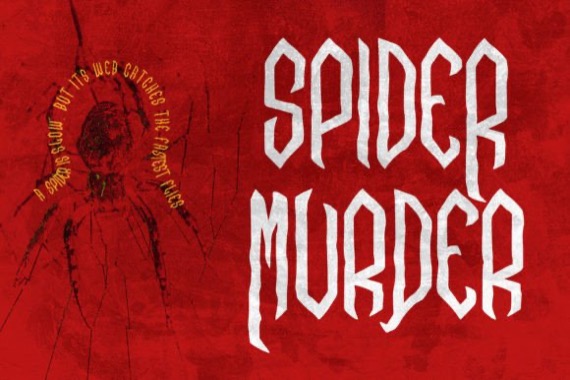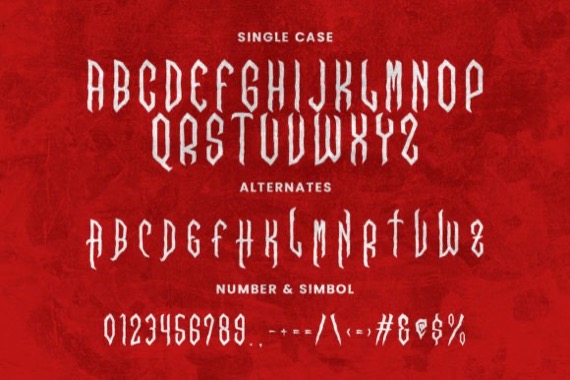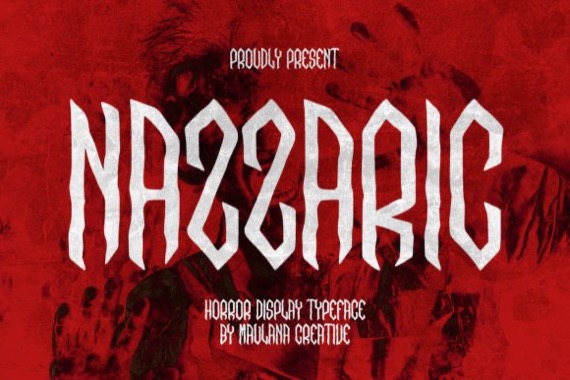
Nazzaric is a cool and fancy horror display font that was created and published by Maulana Creative. This font is good for logo design, Social media, Movie Titles, Books Titles, a short text even a long text letter and good for your secondary text font with script or serif. Make a stunning work with Nazzaric horror display font.
Nazzaric Horror Display Font